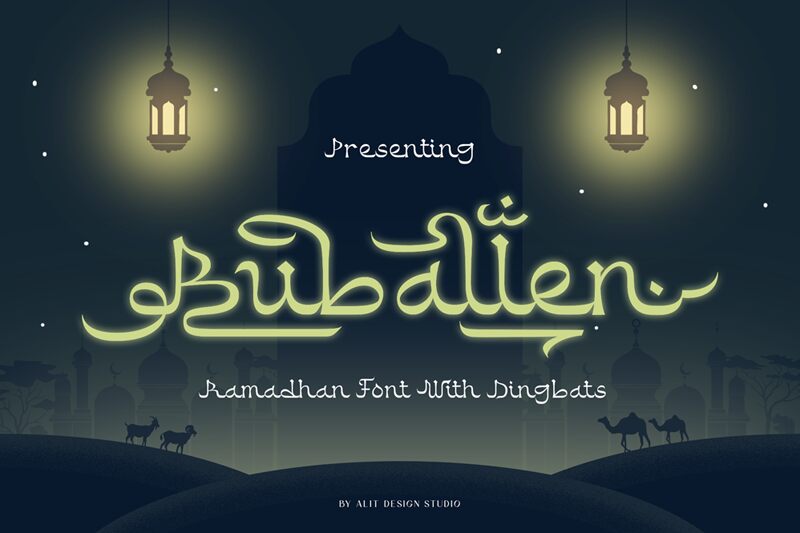
Buballen font designed by Alit Design is a free font that captures an exotic and decorative style inspired by foreign aesthetics. This artistic creation showcases a flowing, sophisticated design with cultural, elegant, and ornate elements. Its intricate details give it a distinctive and nostalgic presence.
The font is perfect for creating eye-catching posters or magazine covers. It also suits product packaging, especially for niche and artisan markets, giving an extra edge to identity designs and logos. Elegant invitations and cards are also possible with this font, as are website headers, mobile apps, game designs, etc.